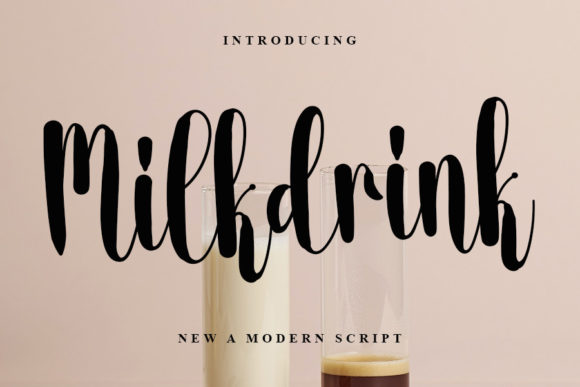
Unleash your creativity with Milkdrink Font, the ultimate script font that will transform your designs into captivating masterpieces. Its tall, casual, and relaxed handwritten style exudes a natural and unique flair, making it the perfect choice for a wide range of design projects.
Step into a world of endless possibilities, where your imagination is the only limit. Milkdrink Font's graceful curves and playful strokes add an irresistible charm to any project, whether it's a heartfelt love letter, an eye-catching social media post, or an elegant wedding invitation.
Indulge in the beauty of Milkdrink Font's intricate details, carefully crafted to mimic the natural flow of handwritten letters. Each character dances across the page with a life of its own, adding a touch of personality and authenticity to your designs.
With Milkdrink Font, you'll discover a versatile font that effortlessly adapts to any project, no matter how big or small. Its ability to seamlessly blend with other fonts makes it the perfect companion for creating harmonious and cohesive designs.
Don't settle for ordinary fonts that fail to inspire. Embrace the magic of Milkdrink Font and watch your designs come alive with a captivating charm that will leave a lasting impression.